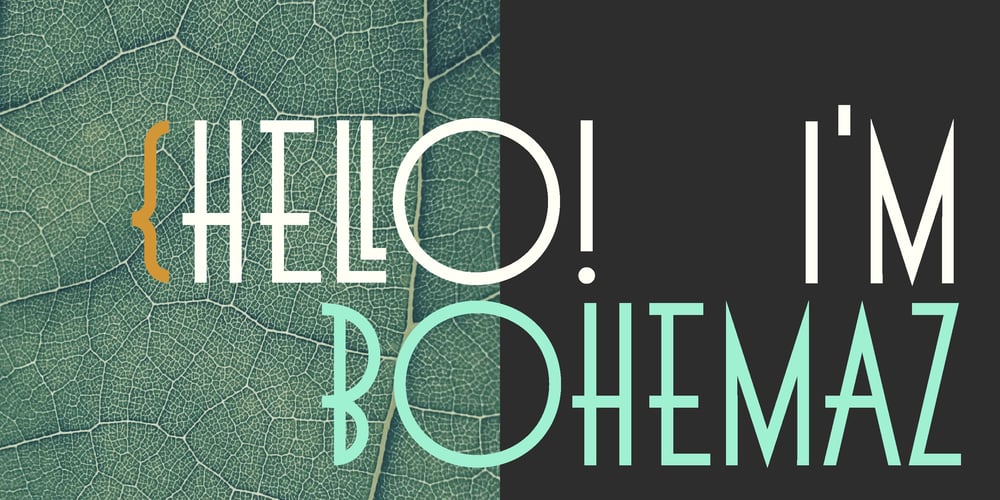
Bohemaz Font Family was designed by Malgorzata Bartosik and published by Malgorzata Bartosik. Bohemaz contains 4 styles and family package options. Bohemaz is a typeface inspired by the Art Deco typography from the 1930s. It contains 4 styles – Thin, Light, Regular and Bold – Latin, Greek and Cyrillic alphabet, diacritics from Western, Central and South Eastern Europe and many decorative ligatures. Bohemaz is both classic and modern, so it can be widely used.